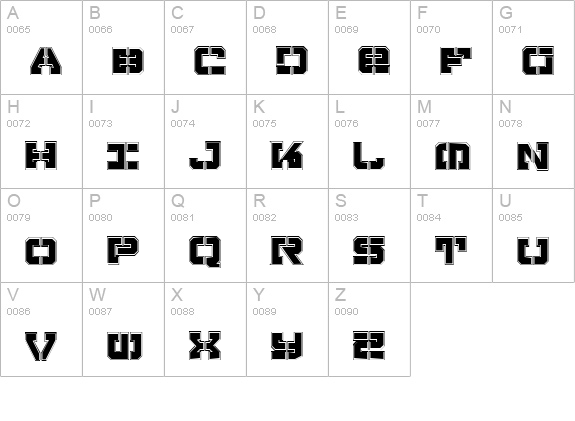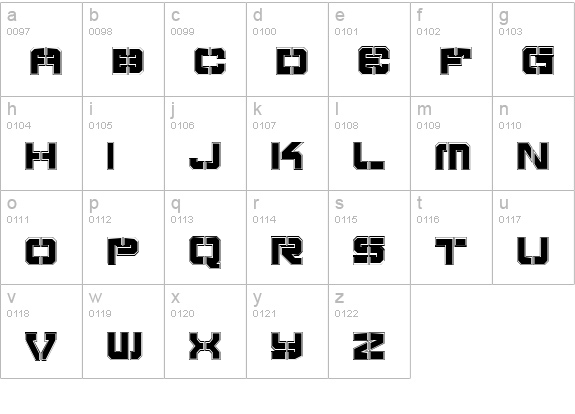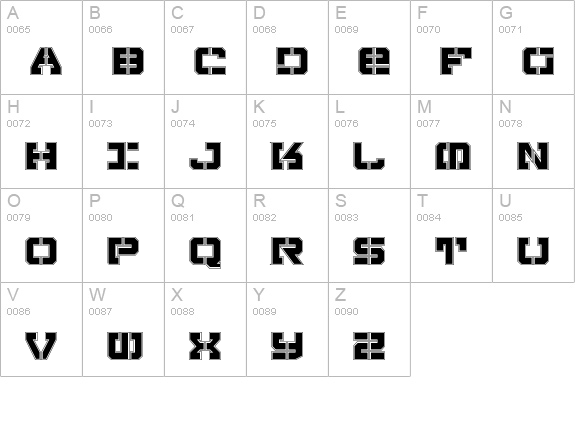
Vyper Pro font is a versatile and modern typeface that exudes a sense of sophistication and elegance. With its sleek lines and sharp angles, this font is perfect for creating eye-catching designs that demand attention. Whether you're working on branding, editorial projects, or website design, Vyper Pro font will elevate your work to the next level. The best part is that Vyper Pro font is available for free download at FontsMarket.com. This means you can access this premium font without any cost, making it a valuable addition to your font collection. Don't miss out on the opportunity to enhance your projects with the stylish and impactful Vyper Pro font today!